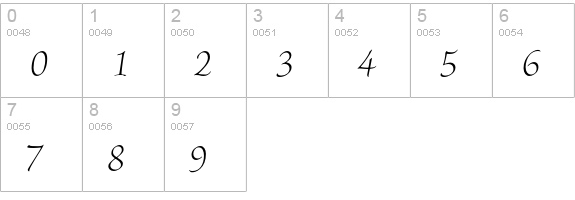
Brioso Pro Light Italic Subhead is a refined, elegant, italic variant in the Brioso typeface family \xE2\x80\x94 well suited to elegant body text, refined sub-headings, and luxury branding.
Brioso Pro Light Italic Subhead is a sophisticated and elegant font that exudes a sense of refinement and style. With its delicate curves and graceful slant, this typeface is perfect for adding a touch of sophistication to any design project. Whether used for subheadings in a magazine layout or for branding materials, Brioso Pro Light Italic Subhead adds a touch of class and elegance. What makes Brioso Pro Light Italic Subhead even more appealing is that it is available for free download at FontsMarket.com. This means that designers and creatives can access this beautiful font without any cost, making it a great option for those looking to enhance their projects without breaking the bank. Don't miss out on the opportunity to elevate your designs with Brioso Pro Light Italic Subhead - download it for free today at FontsMarket.com!